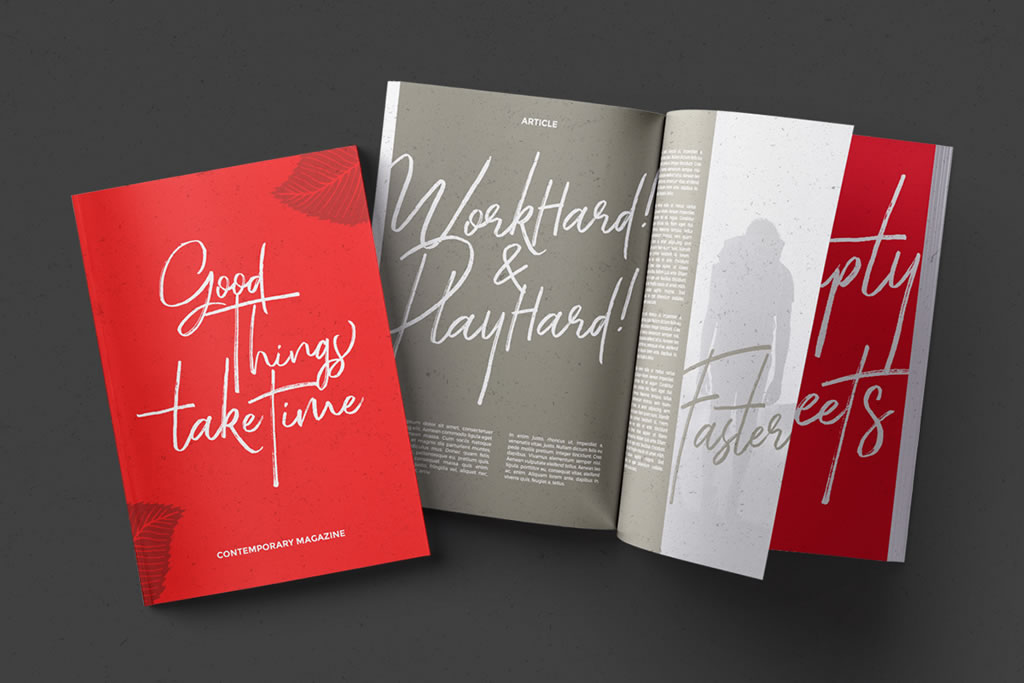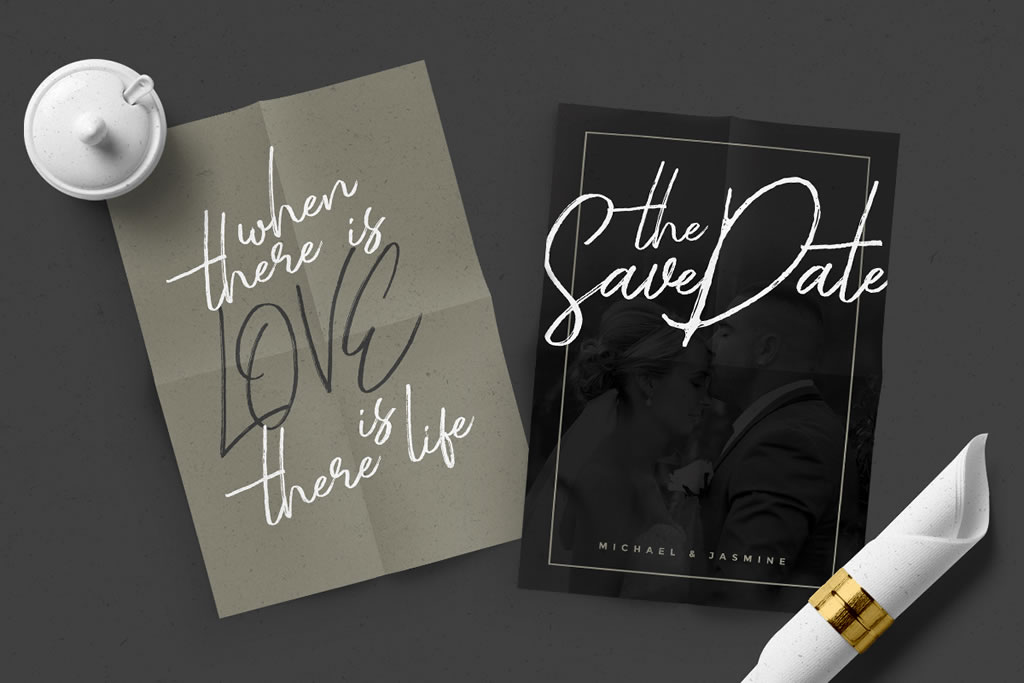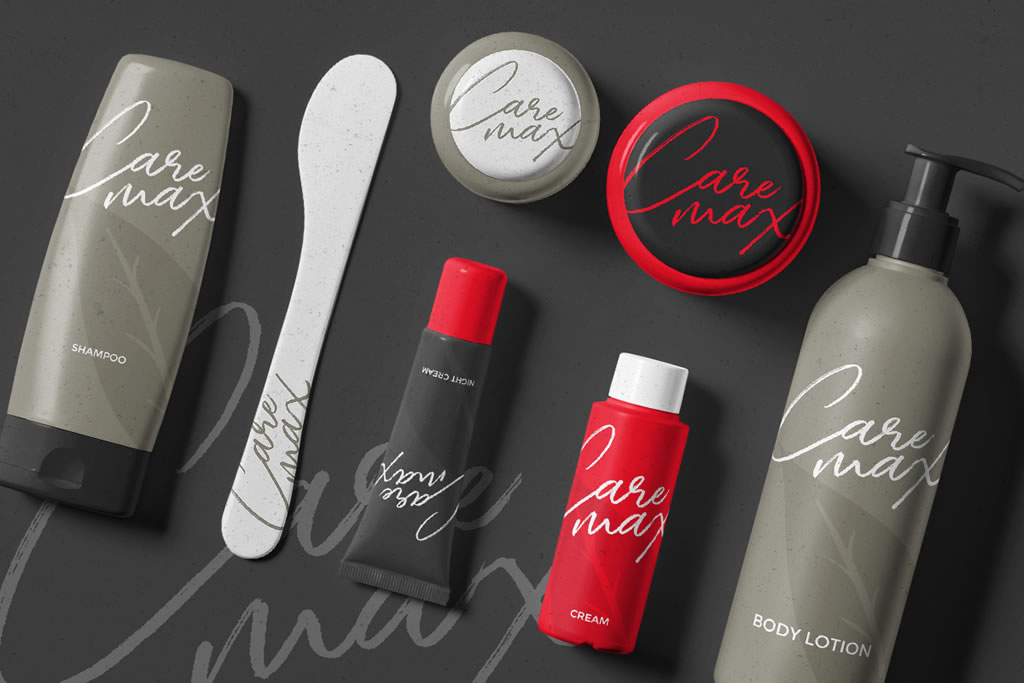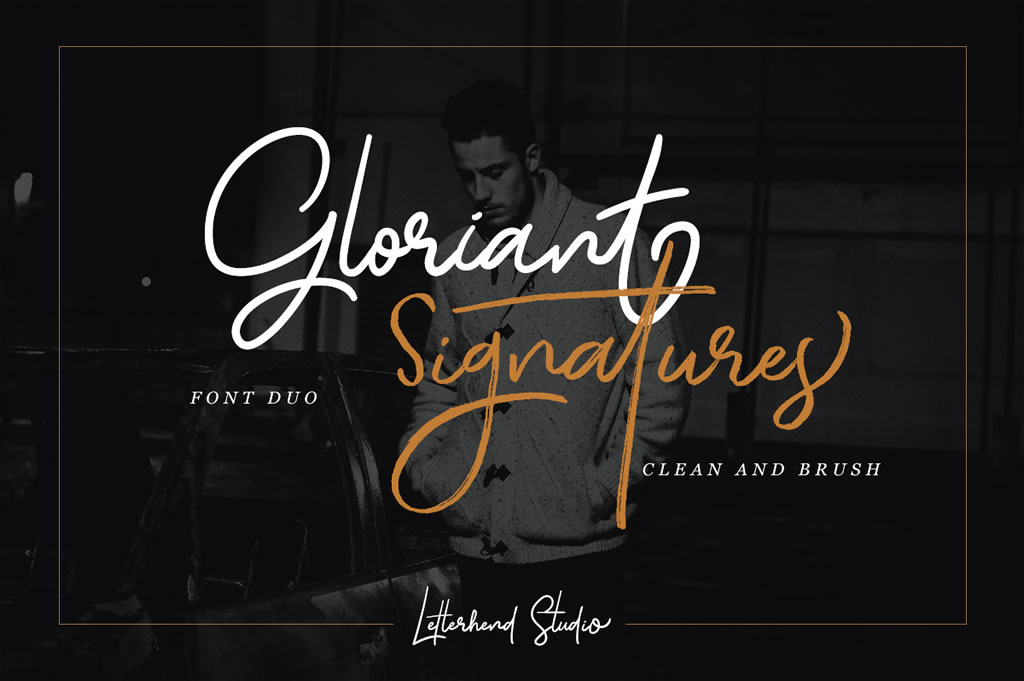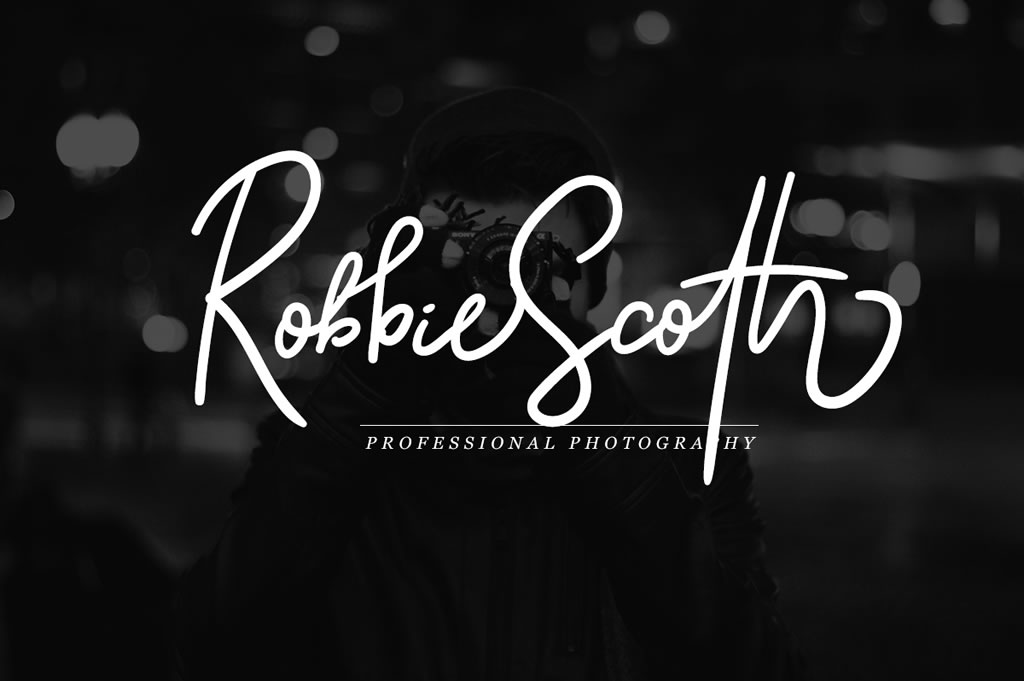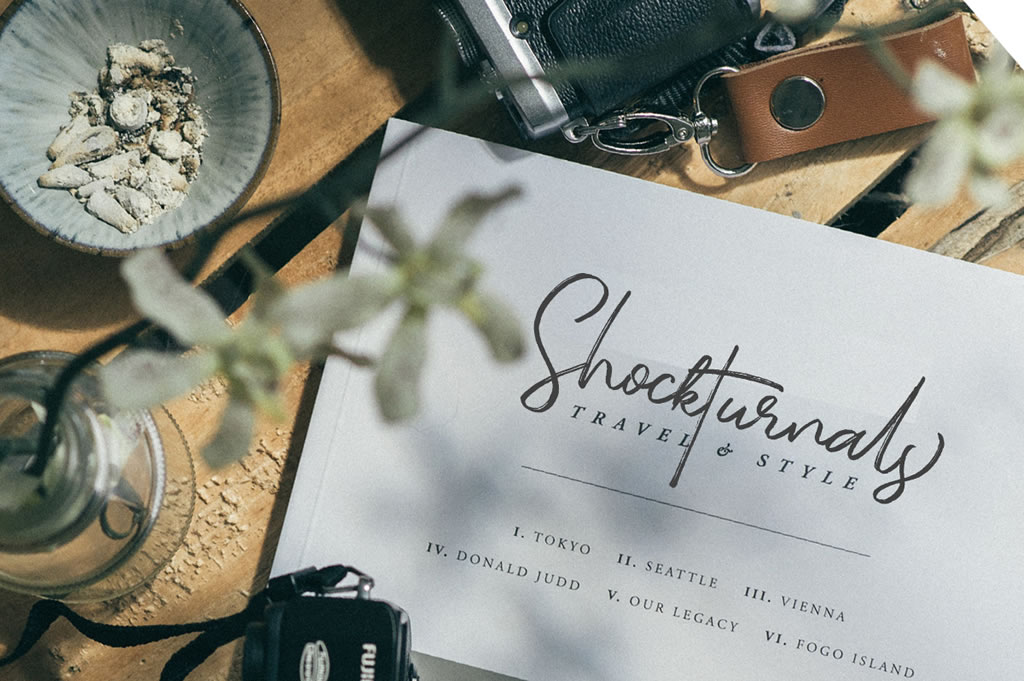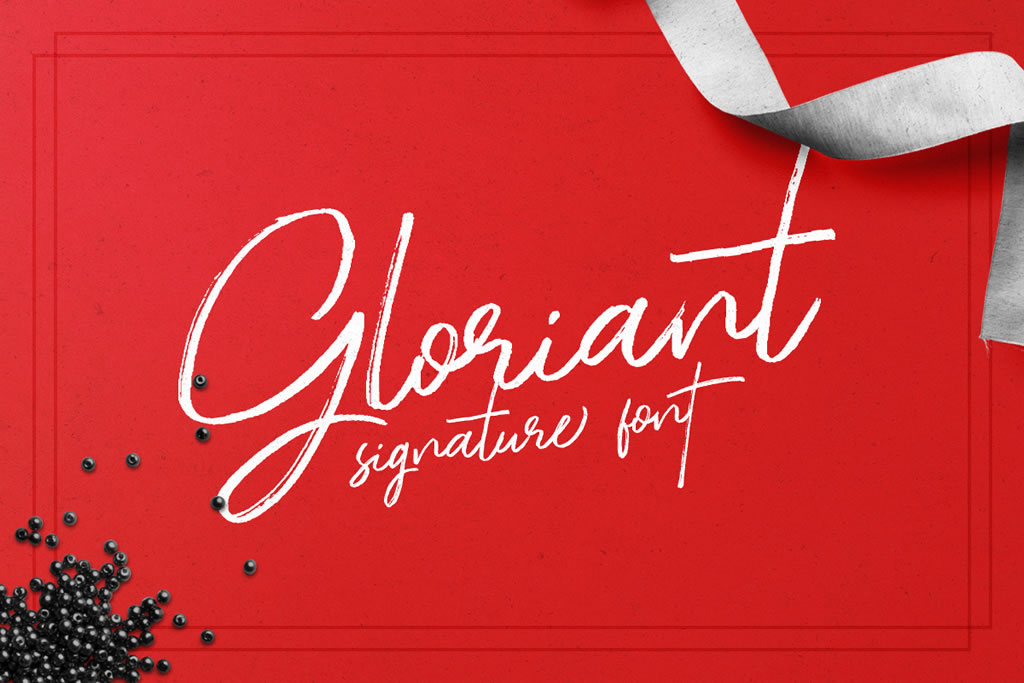
Introducing the Gloriant Font: Elevate Your Designs with Elegance and Sophistication
The Gloriant Signature Script font is a stunning addition to any designer’s arsenal, offering two unique variations: Clean and Brush. Both styles exude elegance and a natural look, making them perfect for a wide range of creative projects. In this article, we’ll dive into the features and benefits of the Gloriant Font, exploring how it can elevate your designs and help you achieve your creative goals.
The Gloriant Font: Two Elegant Variations
The Gloriant Signature Script font comes in two distinct variations: Clean and Brush. The Clean version boasts a crisp, refined look, while the Brush style showcases a more organic, hand-painted feel. Both styles share a common thread – they are designed to add a touch of sophistication and elegance to your designs.
Clean Variation: Precision and Clarity
The Clean variation of the Gloriant Font is perfect for designs that require precision and clarity. This style features smooth lines, precise curves, and a polished finish. The Clean version is ideal for:
- Headings and titles
- Signage and display text
- Digital and print media
The Clean variation is versatile and can be used in a variety of contexts, from corporate designs to creative projects.
Brush Variation: Organic and Expressive
The Brush variation of the Gloriant Font offers a more expressive and organic look, reminiscent of hand-painted lettering. This style features:
- Fluid, dynamic strokes
- Natural, hand-crafted feel
- Emotional and evocative
The Brush variation is perfect for designs that require a personal touch, such as:
- Invitations and event materials
- Art and craft projects
Key Features of the Gloriant Font
The Gloriant Signature Script font offers a range of features that make it an attractive choice for designers and crafters:
- Elegant and sophisticated design
- Two unique variations: Clean and Brush
- High-quality, vector-based design
- Easy to read and versatile
The Gloriant Font offers numerous benefits for designers and crafters, including:
- Time-saving: Use the Gloriant Font to create stunning designs quickly and efficiently
- Consistency: Achieve a consistent look across your designs with the Gloriant Font
- Creativity: Experiment with different styles and variations to find the perfect look for your project
- Professionalism: Elevate your designs with a high-quality, elegant font
Tips for Using the Gloriant Font
To get the most out of the Gloriant Font, consider the following tips:
- Experiment with different sizes and styles to find the perfect fit for your design
- Pair the Gloriant Font with complementary fonts to create visual interest
- Use the Clean variation for body text and the Brush variation for headings or titles
- Take advantage of the font’s versatility and use it across a range of design projects
The Gloriant Signature Script font is a versatile and elegant addition to any designer’s toolkit. With its two unique variations – Clean and Brush – this font offers a range of creative possibilities. Whether you’re a designer, crafter, or DIY enthusiast, the Gloriant Font is sure to elevate your designs and help you achieve your creative goals.